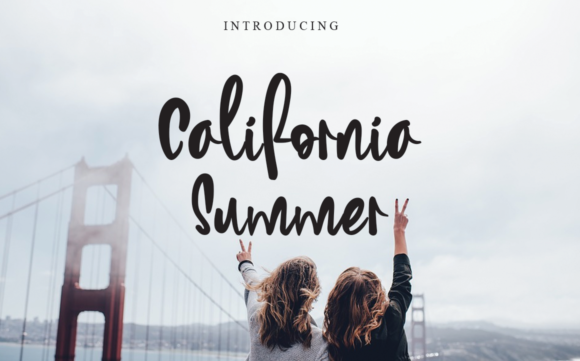
The California Summer Font: A Quirky Companion for Your Creative Projects
I’ll never forget the summer I spent working on a branding project for a beachside cafe. My client wanted a font that captured the laid-back, eclectic vibe of California’s coast. I scoured font libraries, but nothing seemed quite right. That was when I stumbled upon the California Summer font. Its quirky, handwritten charm instantly resonated with me, and I knew I’d found the perfect fit. In this article, I’ll share my experience with this unique font, explore its features, and provide a guide on how to make the most of it in your designs.
An Honest Review of California Summer
So, what makes California Summer so special? Let’s dive into the good stuff and a few quirks I’ve discovered.
- ✨ Unique Character: California Summer boasts uniquely shaped letters that give it a distinct personality, perfect for projects that need a bit of flair.
- ✅ Versatility: This font can easily adapt to a wide range of creations, from playful crafts to more sophisticated branding projects.
- 💃 Informal and Fun: Its handwritten nature makes it ideal for designs that require a casual, approachable feel.
- 🤔 Legibility at Small Sizes: Like many handwritten fonts, California Summer can become a bit tricky to read at very small sizes. It’s best used at larger sizes for optimal impact.
- ⚠️ Overuse: While it’s tempting to use this font for everything, it’s best to use it sparingly to maintain its impact and avoid overwhelming your design.
The Story Behind California Summer
While the origins of California Summer might not be well-documented, it’s easy to imagine a designer inspired by the laid-back vibes of California’s coastline. Perhaps they spent countless hours soaking up the sun, people-watching, and sketching the eclectic mix of beach culture. This font could be the result of those carefree summer days, distilled into a digital form that’s ready to bring a bit of that California magic to your projects.
| Font Name | California Summer Font |
| Author | Garcio |
Q: Does California Summer support OpenType features?
A: Yes, California Summer supports OpenType features, including glyphs and stylistic alternates, allowing for a high degree of customization.